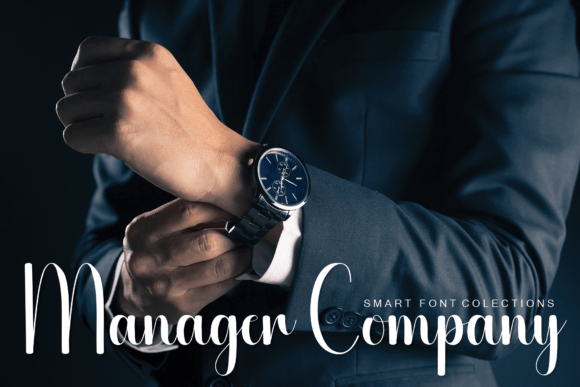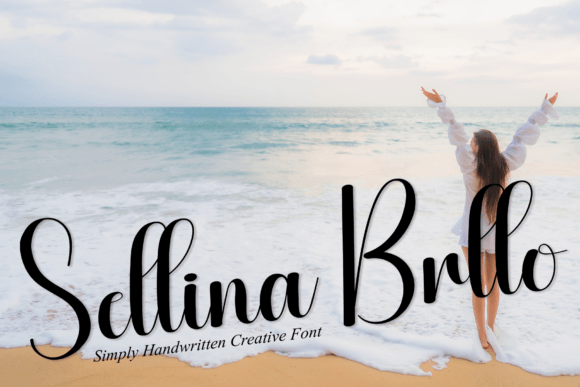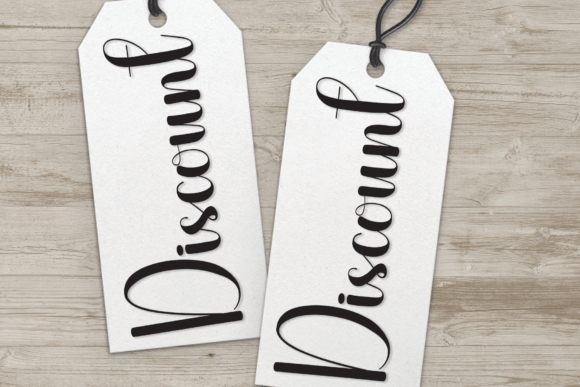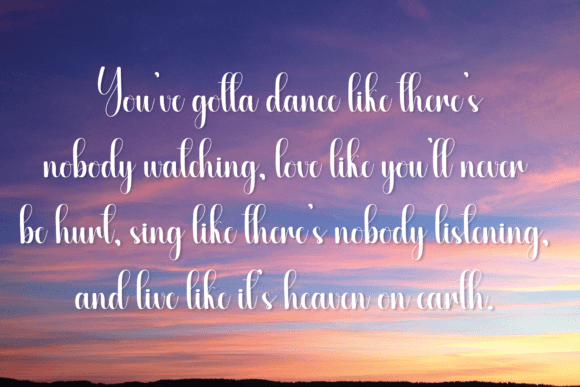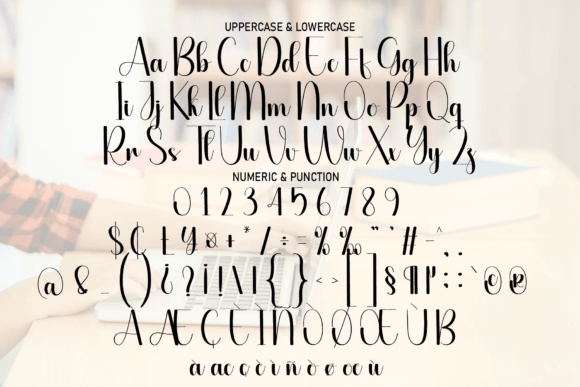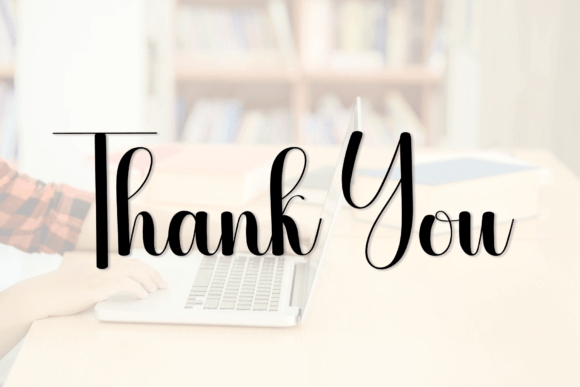
Introducing Adjective Font: The Sweet and Delicate Handwritten Font for Romantic Designs
Are you a designer or crafter looking for a font that can add a touch of romance and personality to your designs? Look no further than Adjective Font, a sweet and delicate handwritten font that’s perfect for creating beautiful wedding invitations, cards, and other designs that require a personal touch.
What Makes Adjective Font Special?
Adjective Font is a unique and charming font that’s designed to bring a sense of joy and elegance to your designs. Its dainty and delicate strokes make it ideal for creating romantic and whimsical designs that will capture the hearts of your audience. Whether you’re designing wedding invitations, greeting cards, or other paper crafts, Adjective Font is the perfect choice.
Characteristics of Adjective Font
So, what makes Adjective Font so special? Here are some of its key characteristics:
- Sweet and delicate: Adjective Font is a handwritten font that’s designed to be sweet and delicate. Its gentle strokes and curves make it perfect for creating romantic and whimsical designs.
- Dainty and joyful: This font is dainty and joyful, making it ideal for creating designs that require a playful and cheerful touch.
- Handwritten with love: Adjective Font is a handwritten font that’s been crafted with love and care. Its unique strokes and curves make it perfect for adding a personal touch to your designs.
- Romantic and personalized: This font is perfect for creating romantic and personalized designs. Its elegant strokes and curves make it ideal for wedding invitations, cards, and other designs that require a special touch.
Uses of Adjective Font
Adjective Font is a versatile font that can be used for a variety of design projects. Here are some of the ways you can use this beautiful font:
- Wedding invitations: Adjective Font is perfect for creating beautiful wedding invitations that will set the tone for the big day.
- Greeting cards: This font is ideal for creating greeting cards for special occasions such as birthdays, anniversaries, and holidays.
- Paper crafts: Adjective Font can be used for a variety of paper crafts such as scrapbooking, journaling, and card making.
- Stationery: This font is perfect for creating personalized stationery such as letterheads, notebooks, and journals.
Tips for Using Adjective Font
Here are some tips for using Adjective Font in your designs:
- Pair it with other fonts: Adjective Font can be paired with other fonts to create a unique and interesting design. Try pairing it with a bold font for a striking contrast.
- Use it for headings and titles: This font is perfect for headings and titles. Use it to add a touch of elegance and sophistication to your designs.
- Experiment with colors: Adjective Font looks great in a variety of colors. Experiment with different colors to find the one that works best for your design.
- Add embellishments: Add embellishments such as flowers, hearts, and stars to your design to make it more interesting and playful.
Adjective Font is a beautiful and versatile font that’s perfect for designers and crafters who want to add a touch of romance and personality to their designs. Its sweet and delicate strokes make it ideal for creating romantic and whimsical designs that will capture the hearts of your audience. Whether you’re designing wedding invitations, greeting cards, or other paper crafts, Adjective Font is the perfect choice.